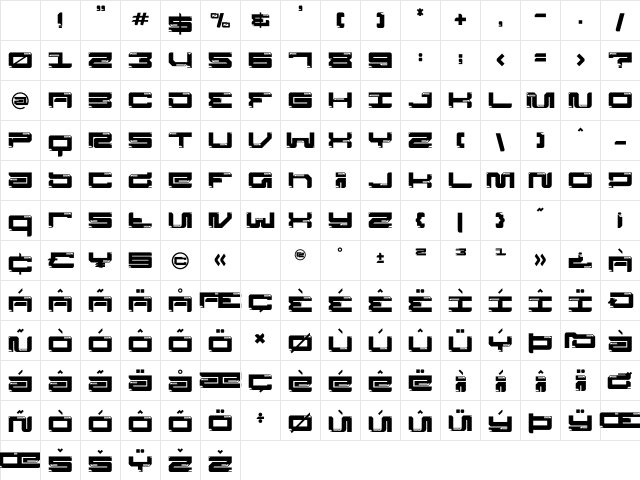
Complete Dynatron Regular glyph index. Displaying only characters natively supported by Dynatron Regular font.
Dynatron is a composed and adaptable typeface that performs quietly and consistently across a wide range of design contexts.